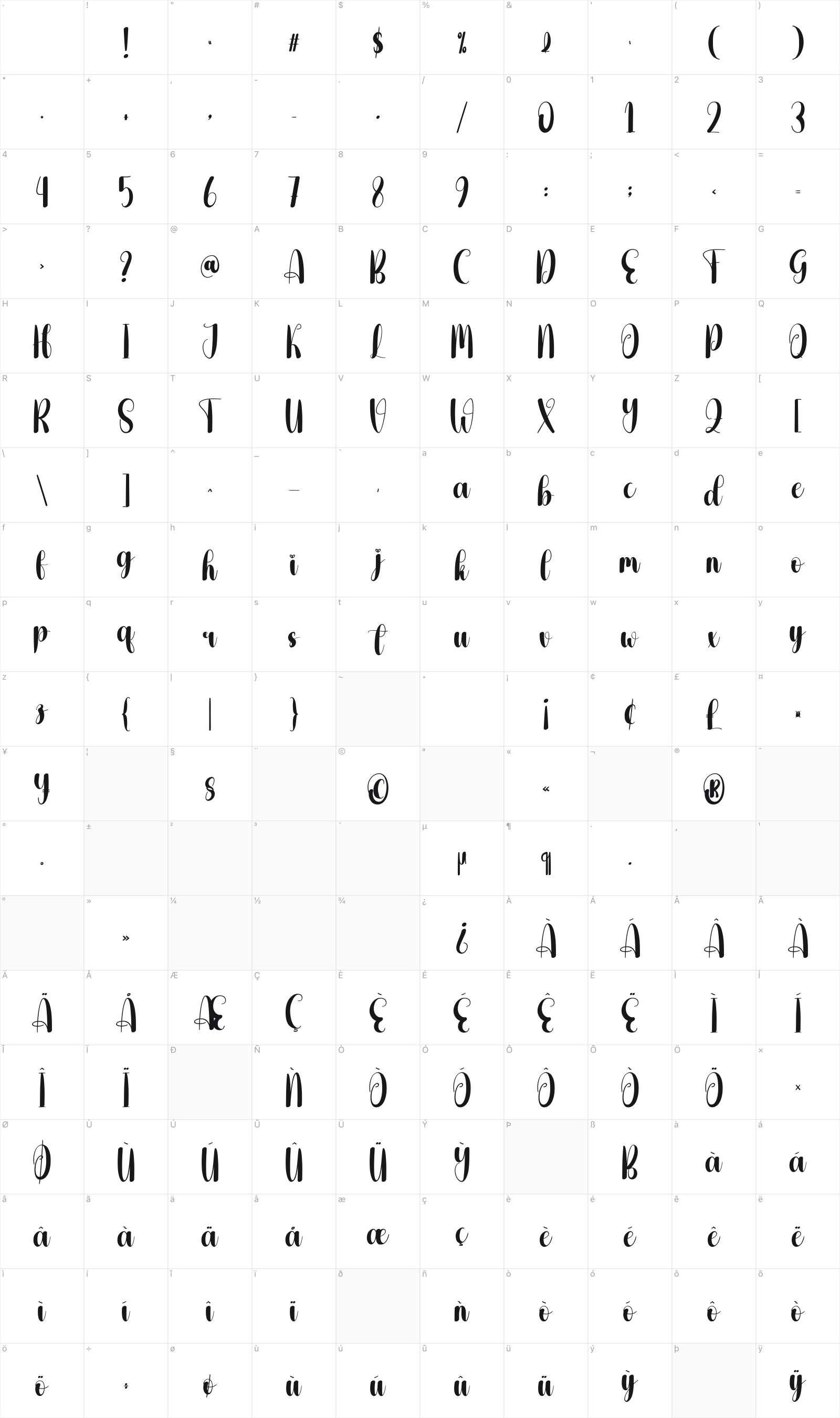
Benefit
Benefit is a bold casual script with sweeping strokes, looping ascenders, and a lively bouncing baseline that radiates warmth. The high contrast between thick downstrokes and gossamer hairlines gives it genuine calligraphic character without feeling stiff. It thrives on wedding invitations, greeting cards, and any project where the design needs a personal, joyful touch.